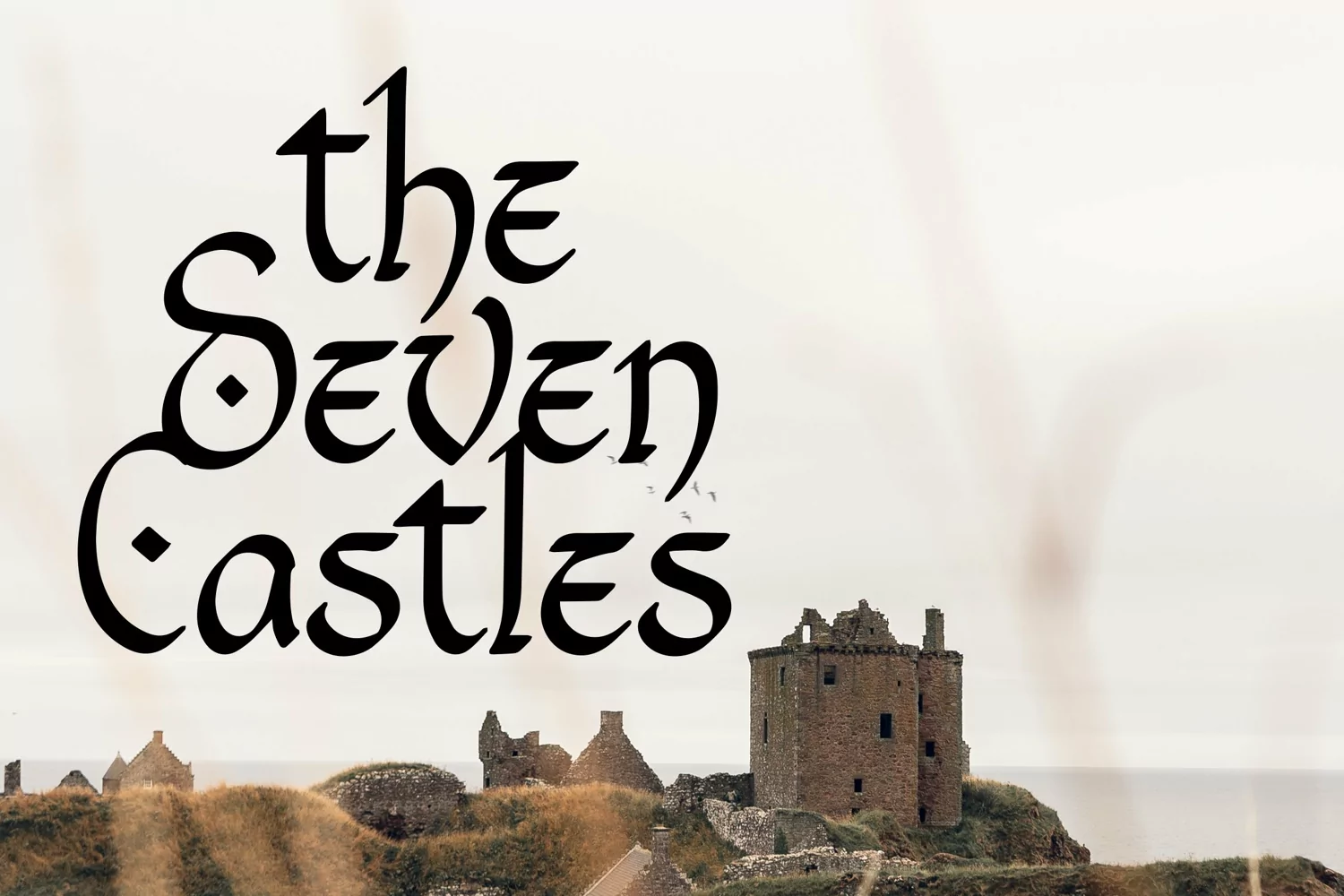
South Celtics - Pirate Blackletter Font that contain lowercase, uppercase, symbol, and also support multi language. There’s a lot ligatures in this font. This Font also comes with ligatures, alternates and many more. this font suitable for fashion, branding, catalog and other design what you want.